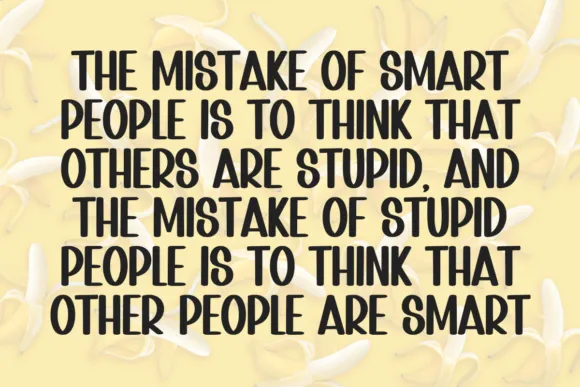
Free Banana Cupcake Font
Banana Cupcake Font is an energetic sans-serif textual style that adds a sprinkle of enjoyable to any plan. With its adjusted edges and energetic letterforms, it oozes a feeling of eccentricity and flexibility.
Ideal for marking, bundling, banners, and anything that requires a hint of merriment and inventiveness.